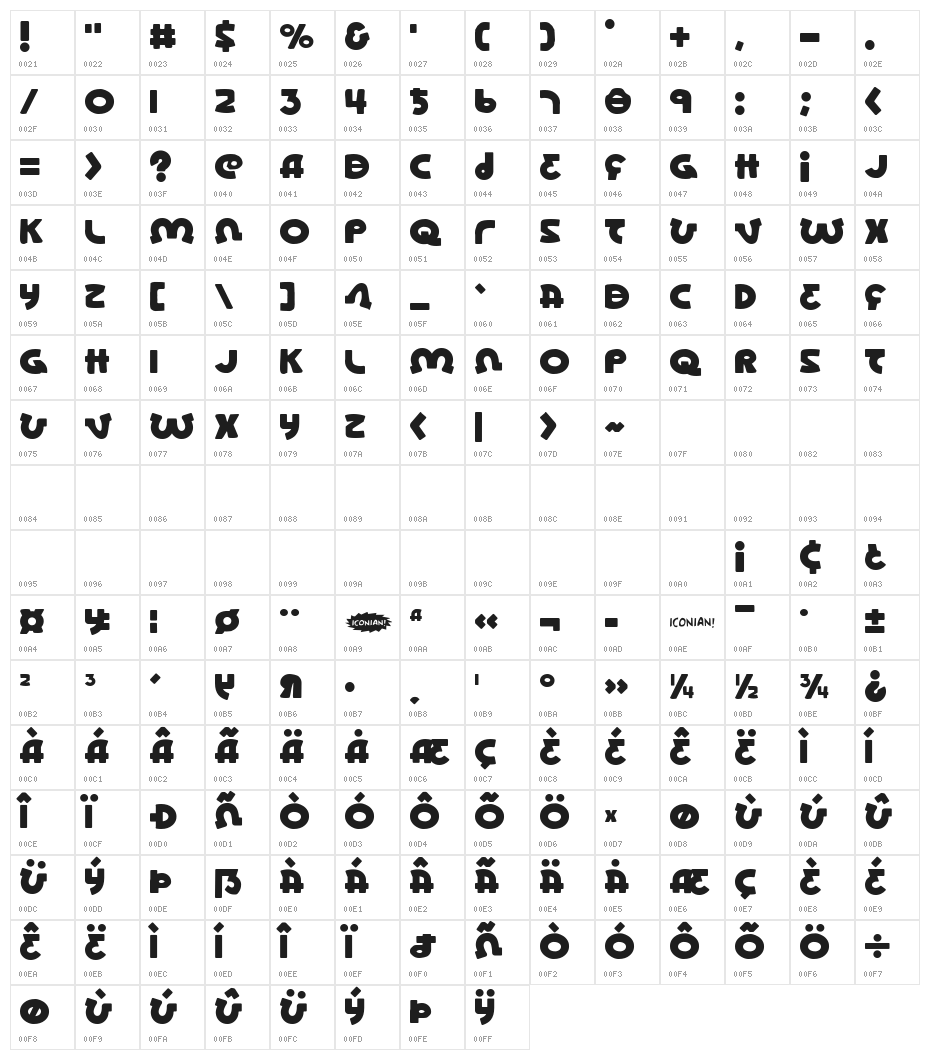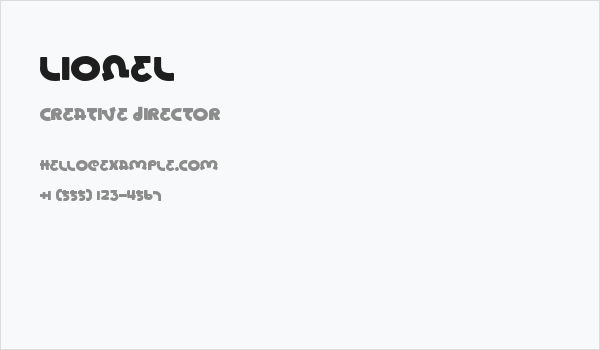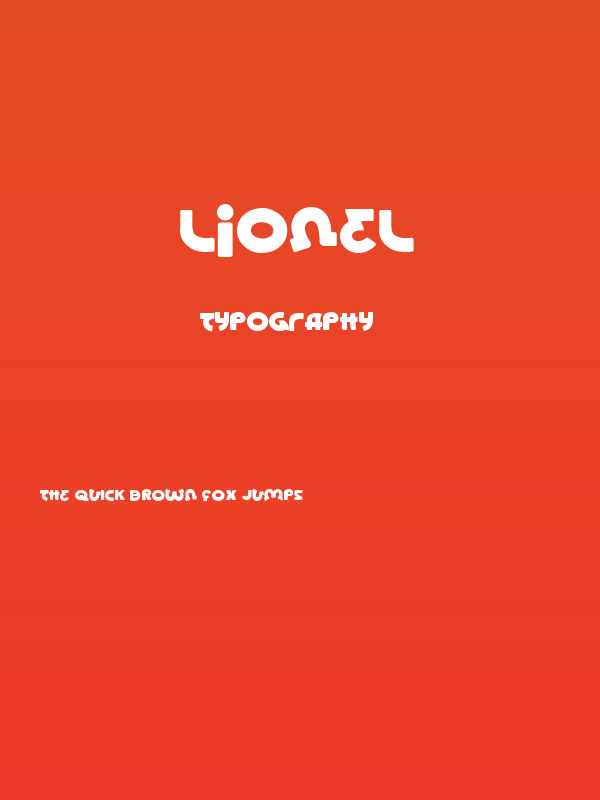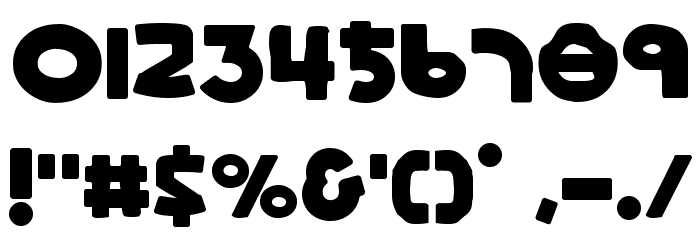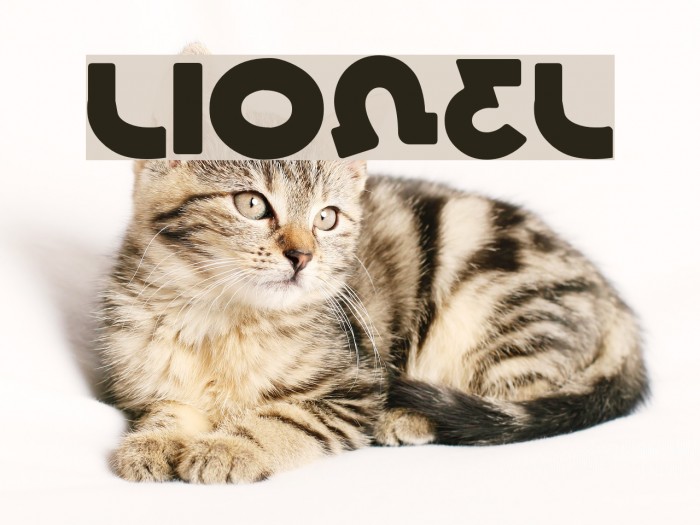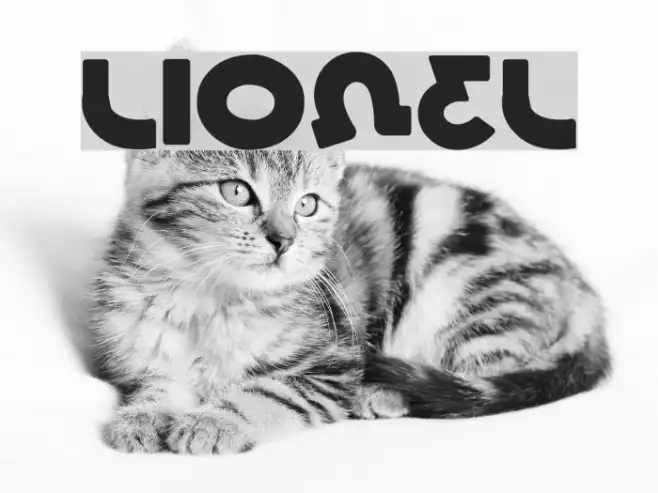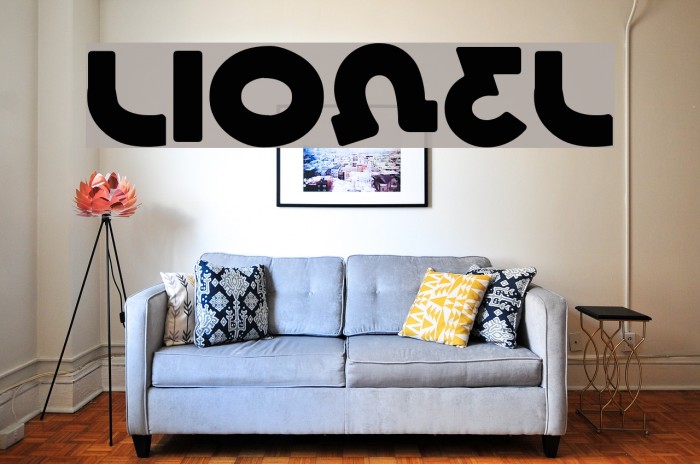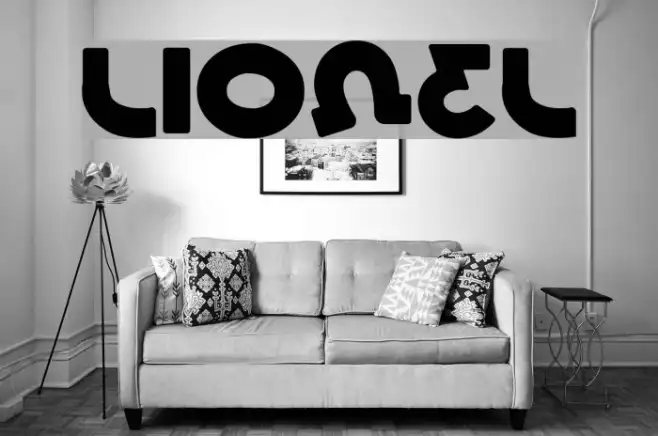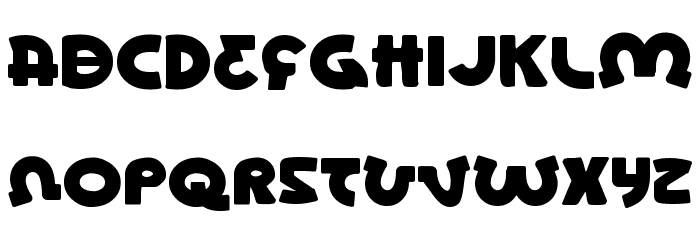
Lionel Font
Lionel Description
This font features a bold and playful design with rounded edges and a unique, chunky appearance. The characters are highly stylized, with a whimsical and fun aesthetic that makes them stand out. The uppercase and lowercase letters share a consistent thickness, contributing to a cohesive look. The numbers and special characters maintain the same playful style, making the font versatile for various creative applications. Its boldness and unique character shapes make it ideal for eye-catching designs.
| Overall Style | Playful, Whimsical |
| Proposed Projects | Ideal for children's books, playful branding, posters, and creative digital content. |